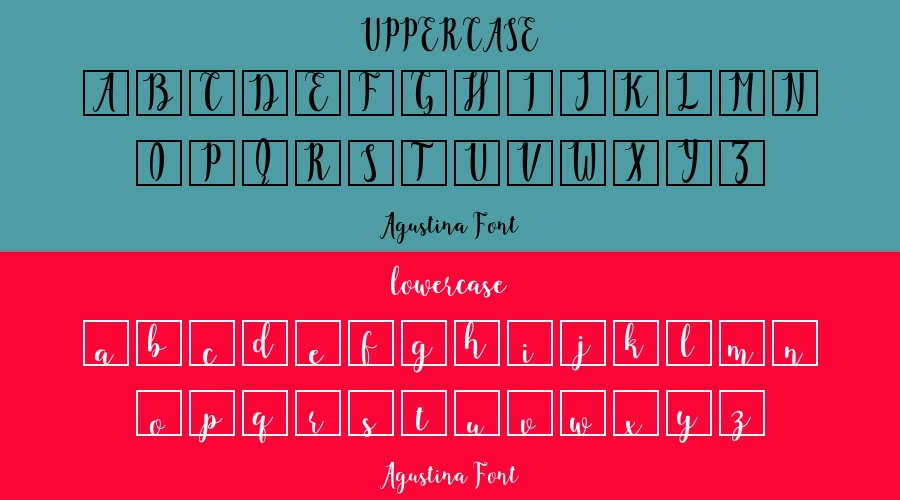
About Agustina Font
Agustina Font stands out for its distinctive combination of width contrast and technical accuracy. Ideal for technical manuals, it provides the accuracy and creative impact that professional projects demand. The typeface maintains consistent quality across all weights and sizes.
Key features include refined artistic freedom and practical authentic details, enhancing typographic expression. In technical diagrams applications, Agustina Font demonstrates exceptional small cap rendering. The corner treatment and subtle details contribute to its distinctive character and professional appeal.